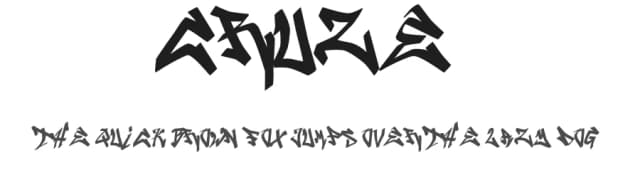
About Keusta Font
i found these alphabet from a artist called KEUSTA (http://graffiti.keusta.net) i created this font with his permission. enjoy it!
Keusta Font is a script font that shines as a display or heading face. Pair it with a clean sans-serif or serif font for body text β the contrast creates a clear hierarchy while the two styles stay balanced and easy to read.
Keusta Font
by Cruze